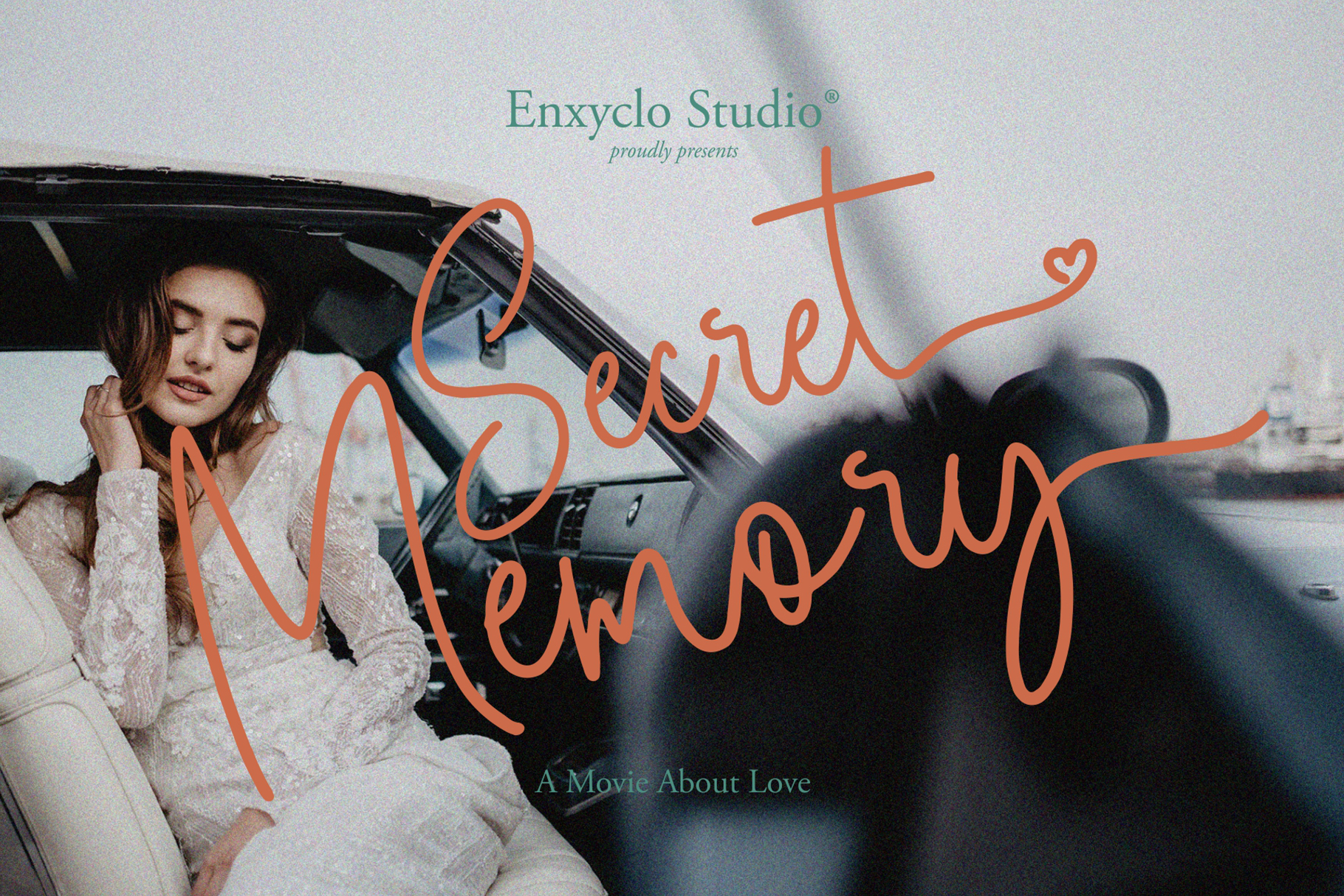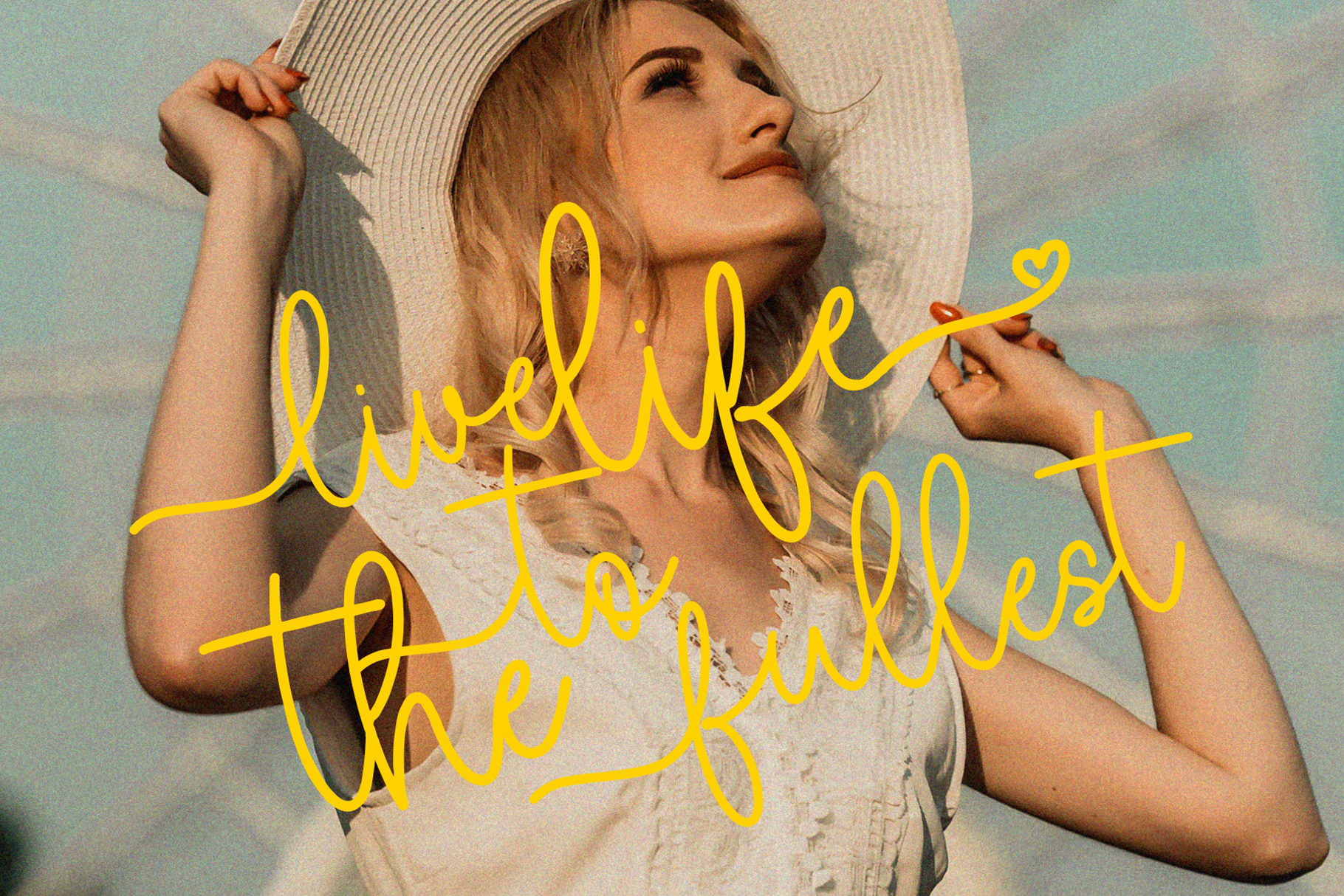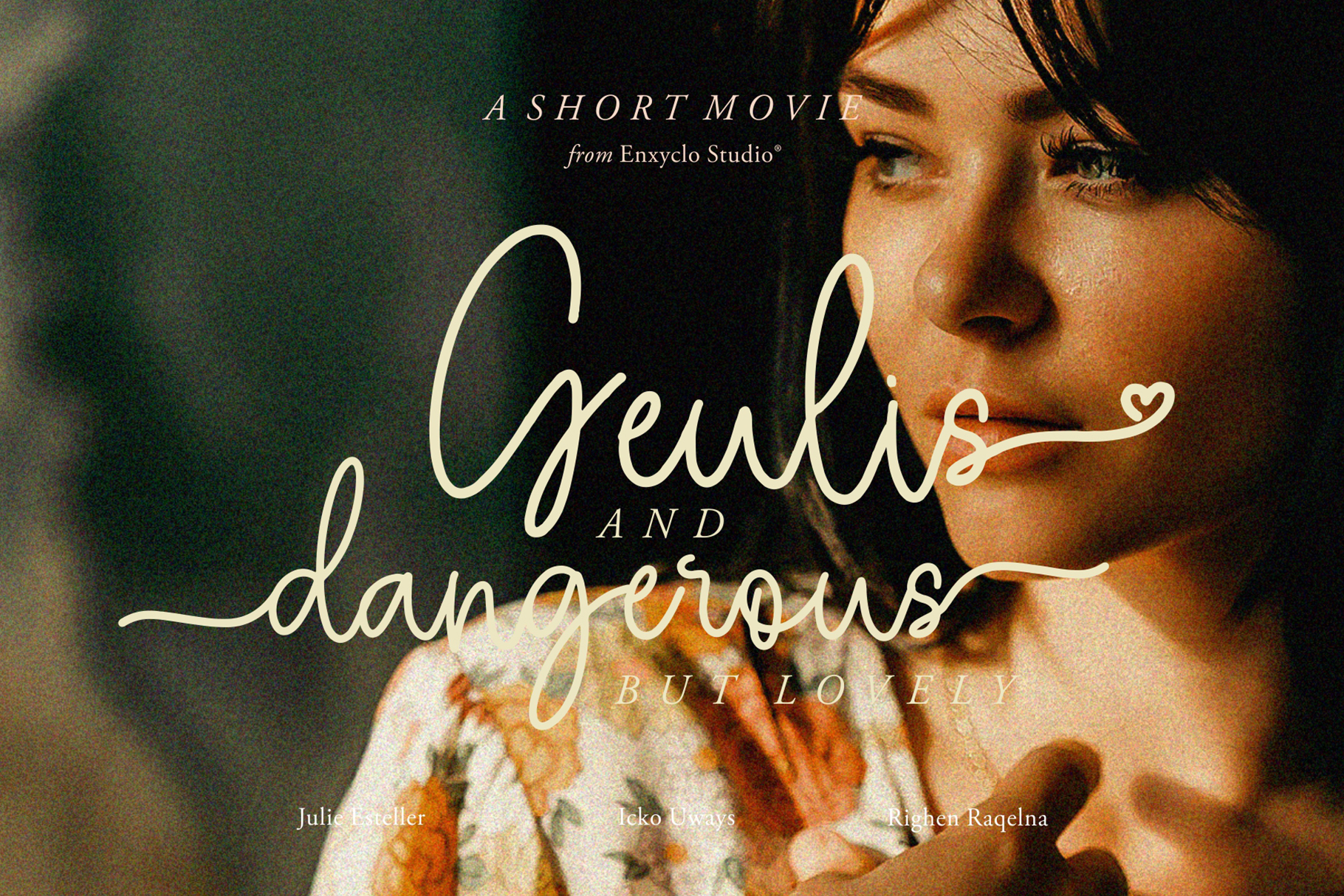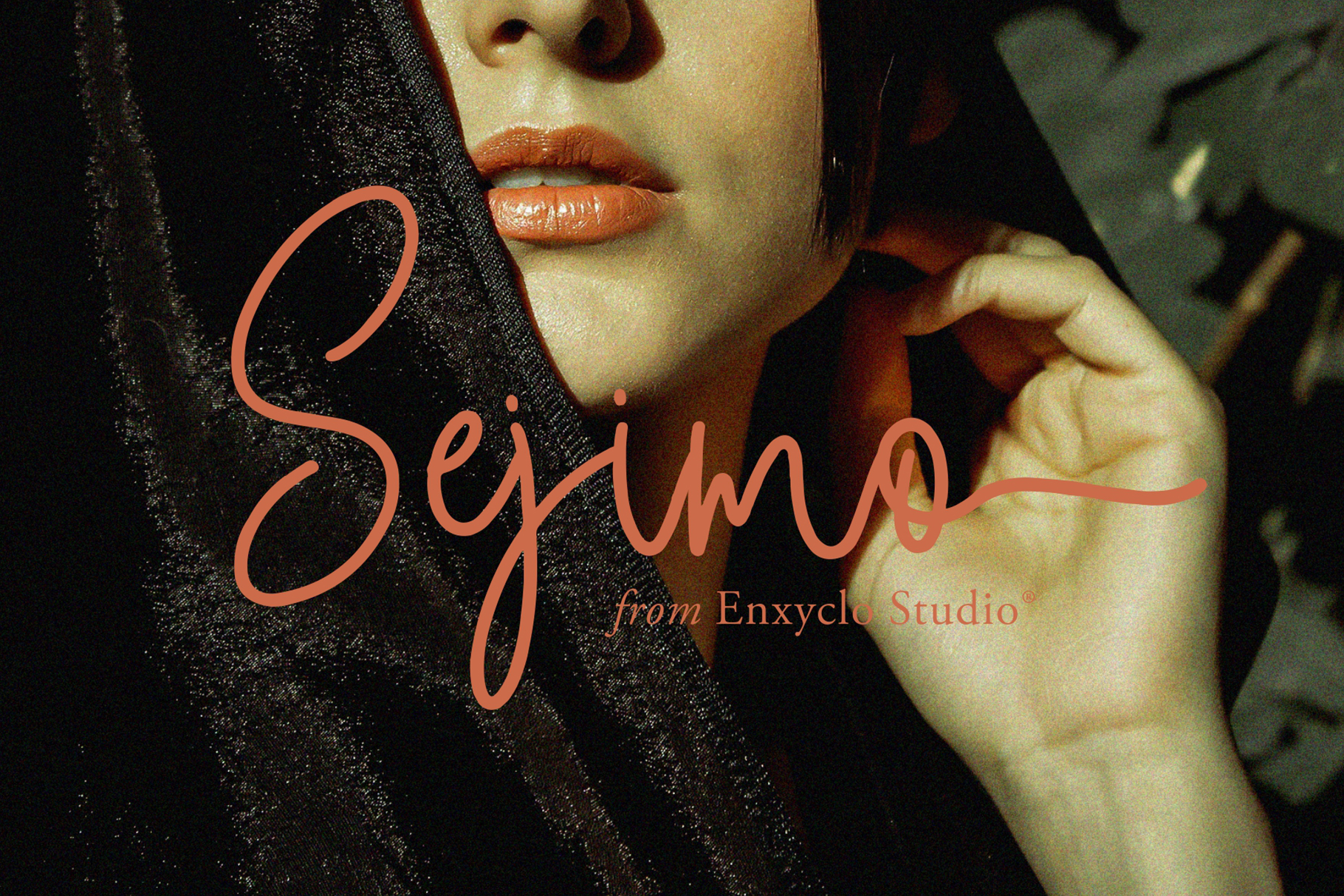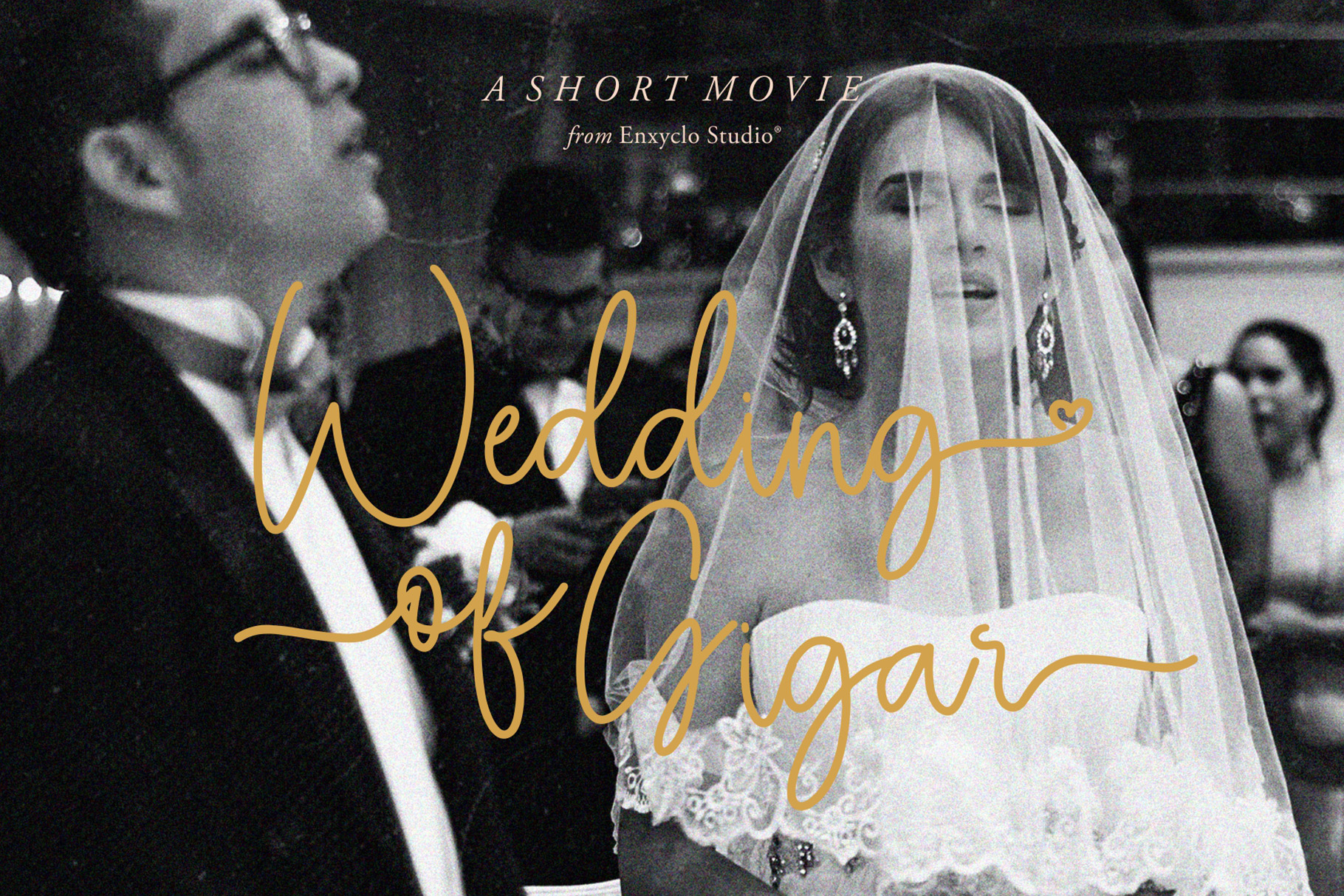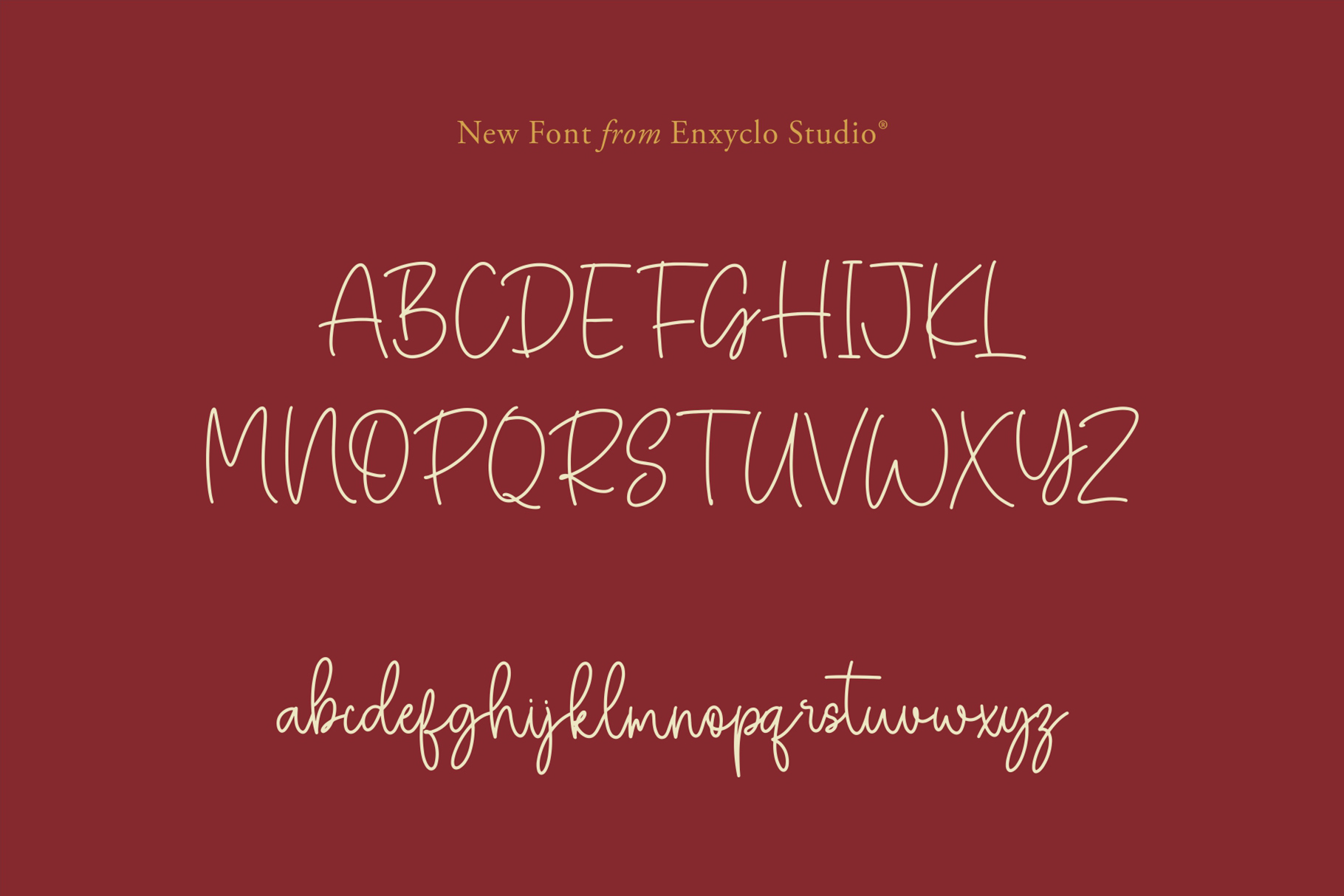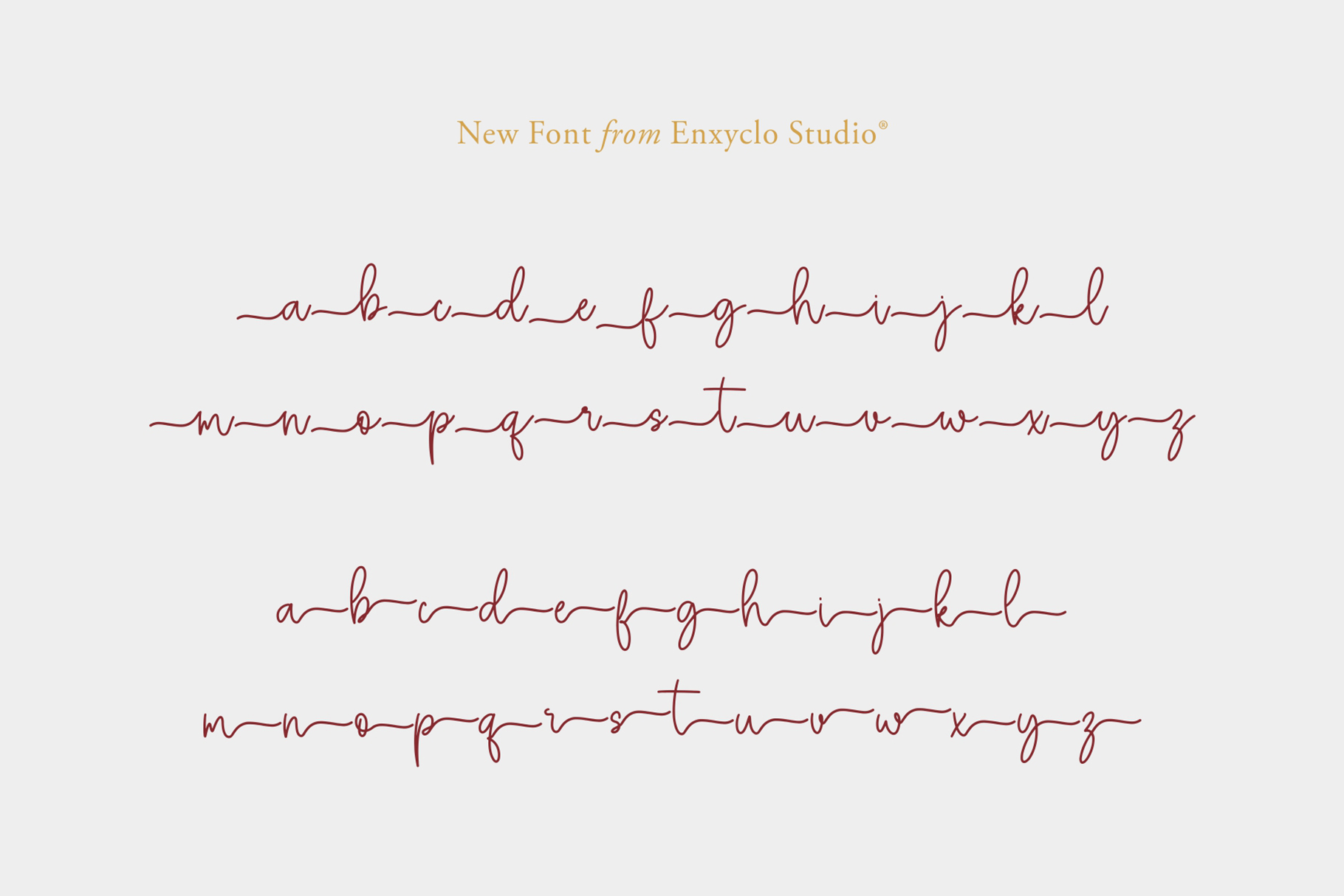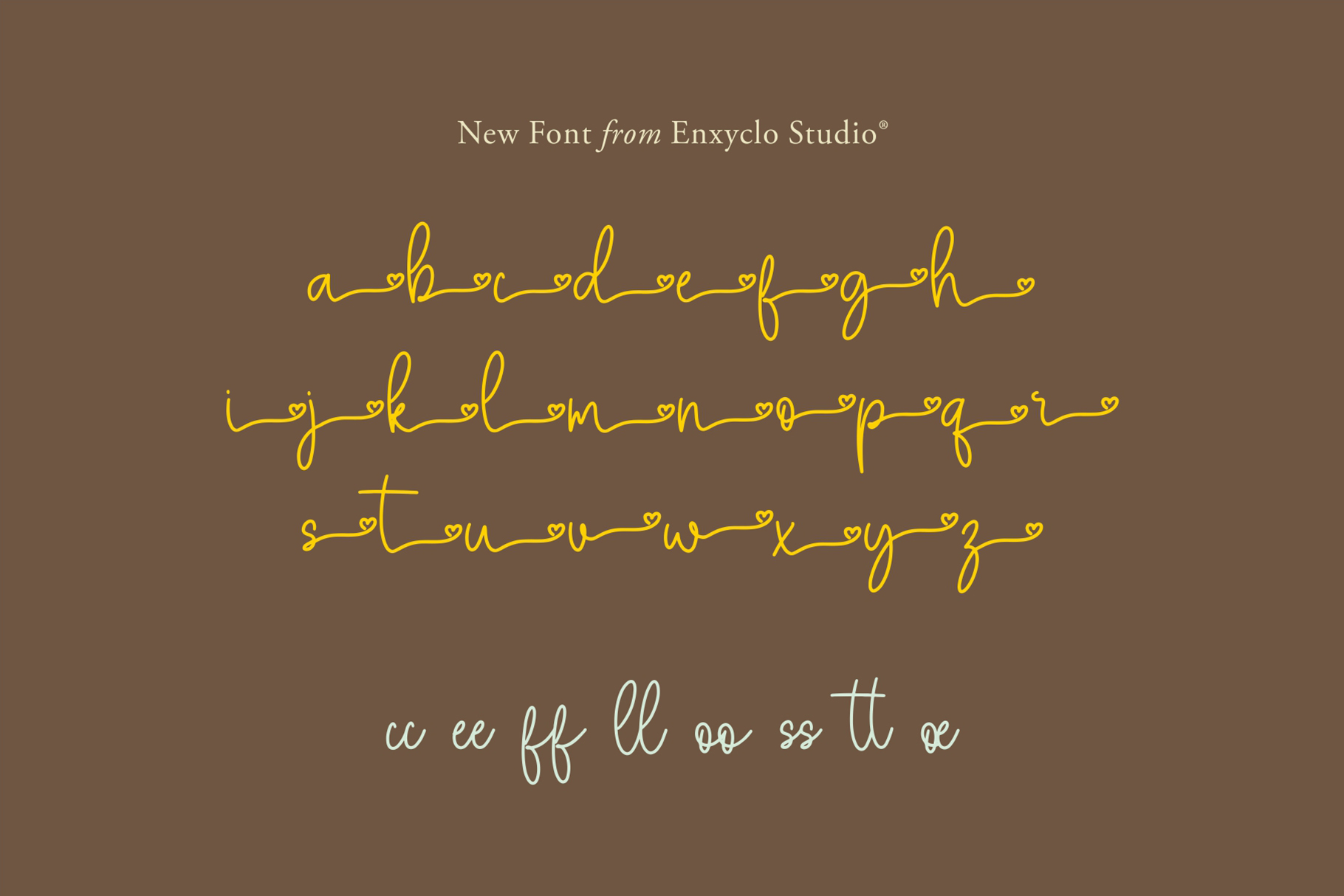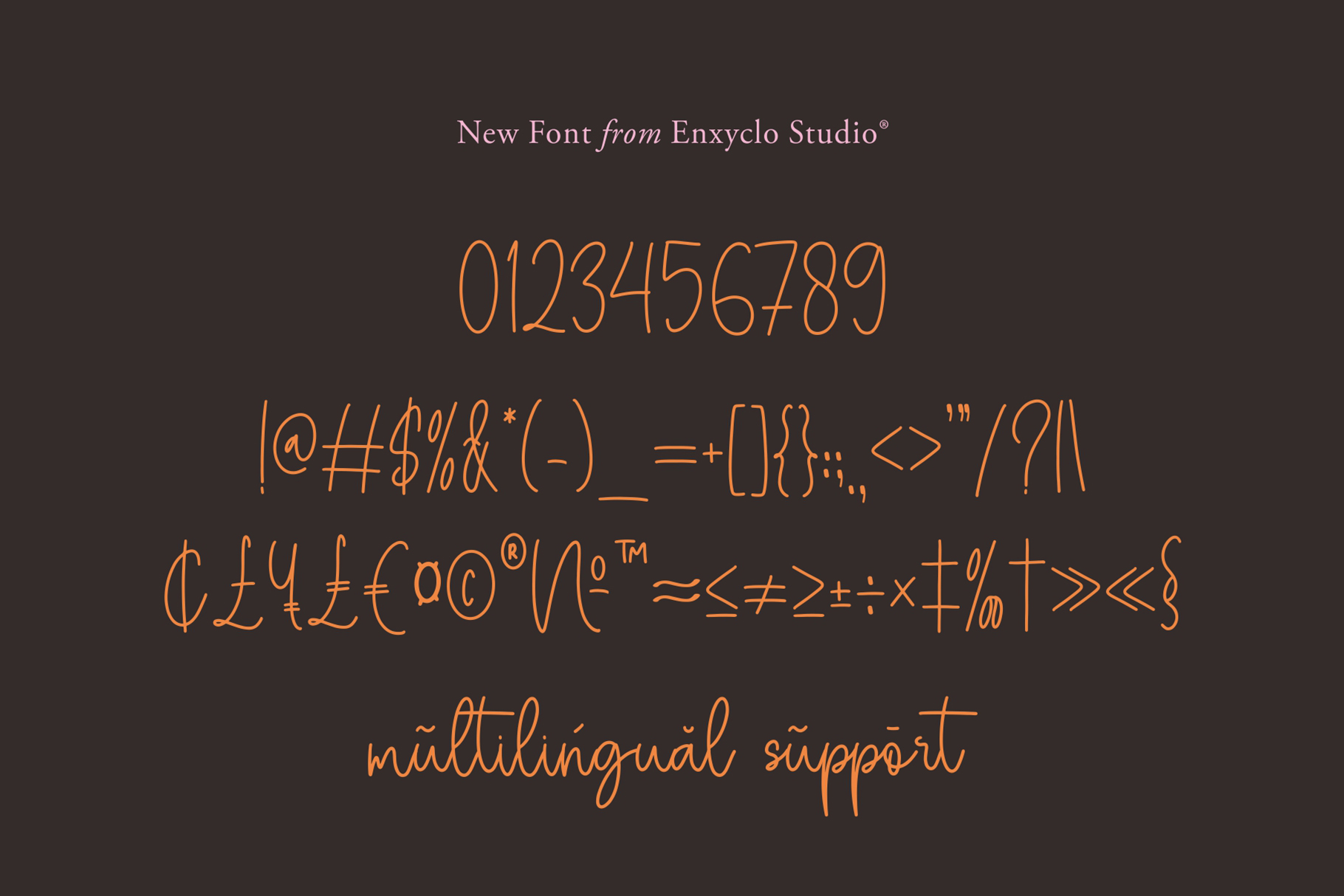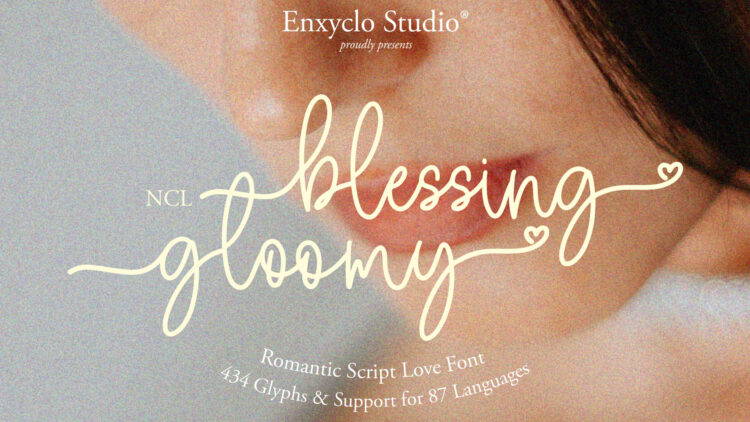
NCL Blessing Gloomy – Love Swash Script Wedding Font
NCL BLESSING GLOOMY is romantic love heart swash script font. It is unique handwritten script font with heart or love swashes. Masterfully designed to become a true favorite, this font has the potential to bring each of your creative ideas to the highest level! It was purposely crafted to be used in large point sizes, although it doesn’t lose its magic in small point sizes. It is perfect for wedding or romantic event, headline, billboard, magazines, website, titles, poster, branding, t-shirt design, and logos. No matter the topic, this font will be an incredible asset to your fonts’ library, as it has the potential to elevate any creation. With this beautiful font, absolutely you can make your project stand out from the rest.
• Contains 434 Glyphs
• Uppercase & Lowercase
• Numeral, Punctuation & Symbols
• Stylistic Set 1 , 2, and 3
• Multilingual Support